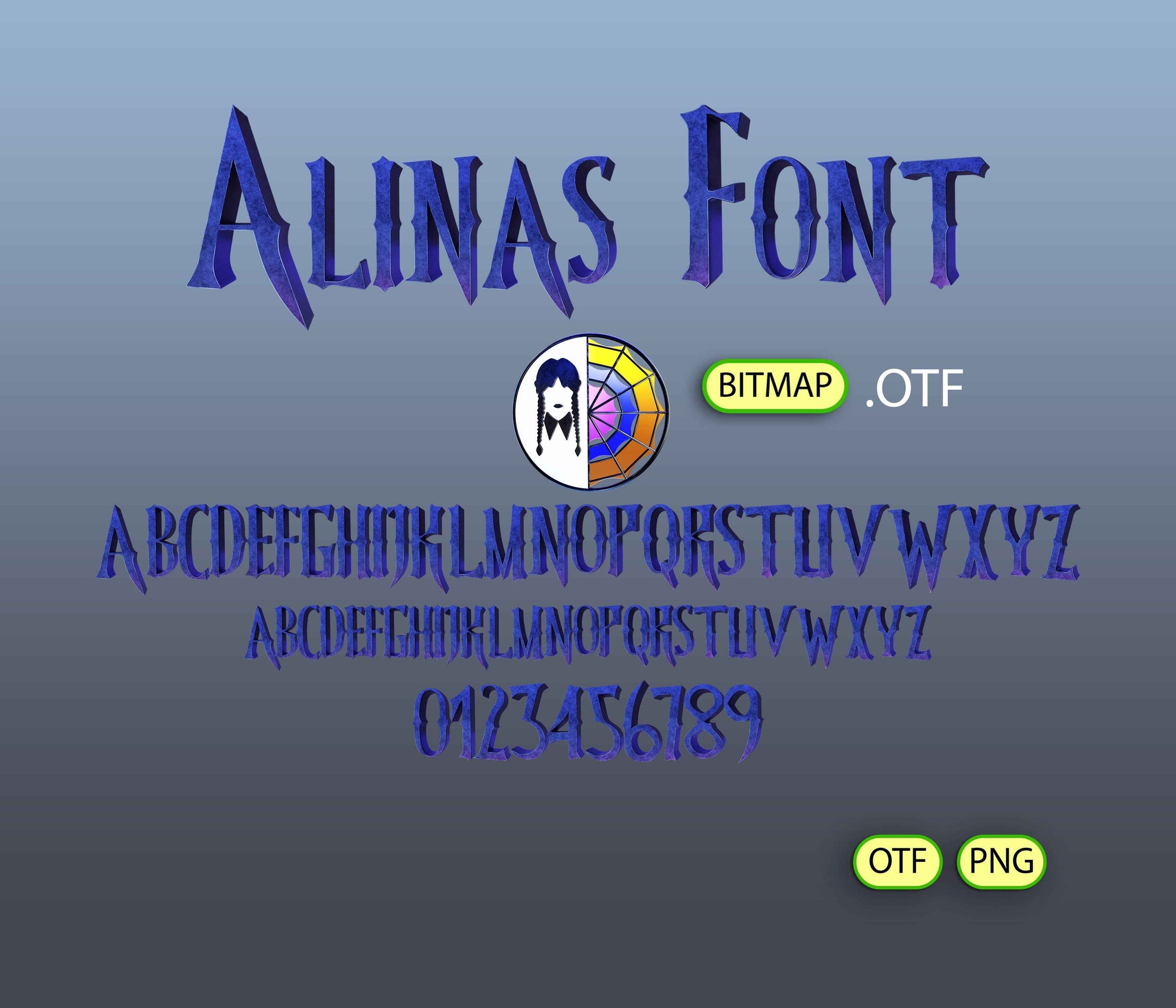
Enigmatic Heiress Font Textured
Enigmatic Heiress Font: Unleash Your Darkly Creativity
Step into the shadowy and delightfully macabre world of a gothic heroine with our bespoke font, a typographical tribute to an iconic character from a beloved dark comedy series. Embrace the gothic charm and witty darkness that this enigmatic heiress embodies. This font doesn't just spell words; it weaves an enigmatic and eerie essence into every character and glyph, inviting you to craft narratives or designs that resonate with an iconic, darkly comedic universe.
What font is the Enigmatic Heiress font?
You're delving into a realm where sharp contrasts meet whimsical curves. Our handcrafted font mirrors a unique blend of dark humor and timeless elegance. The extensive character set goes beyond basic alphabets to include numbers and special characters, ensuring a true replica of the iconic style associated with this beloved character. It's not just a font; it's a piece of art, meticulously designed to bring peculiar charm into every word.
This font is perfect for bringing a touch of gothic charm and wit to any project, whether it's for personal use or creative ventures. It's a versatile tool for designers and fans alike, offering a unique way to capture the spirit of a beloved dark comedy character.